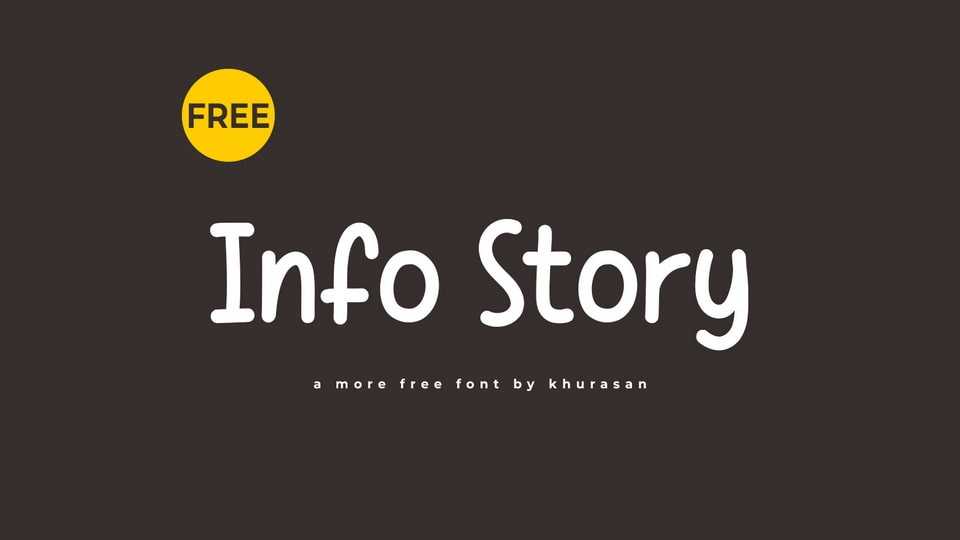
Download Info Story font, a simple and fun handwritten comic typeface that brings a burst of laughter and joy to your designs. Info Story font is crafted with playful strokes and whimsical details, capturing the essence of comic book charm and lightheartedness.